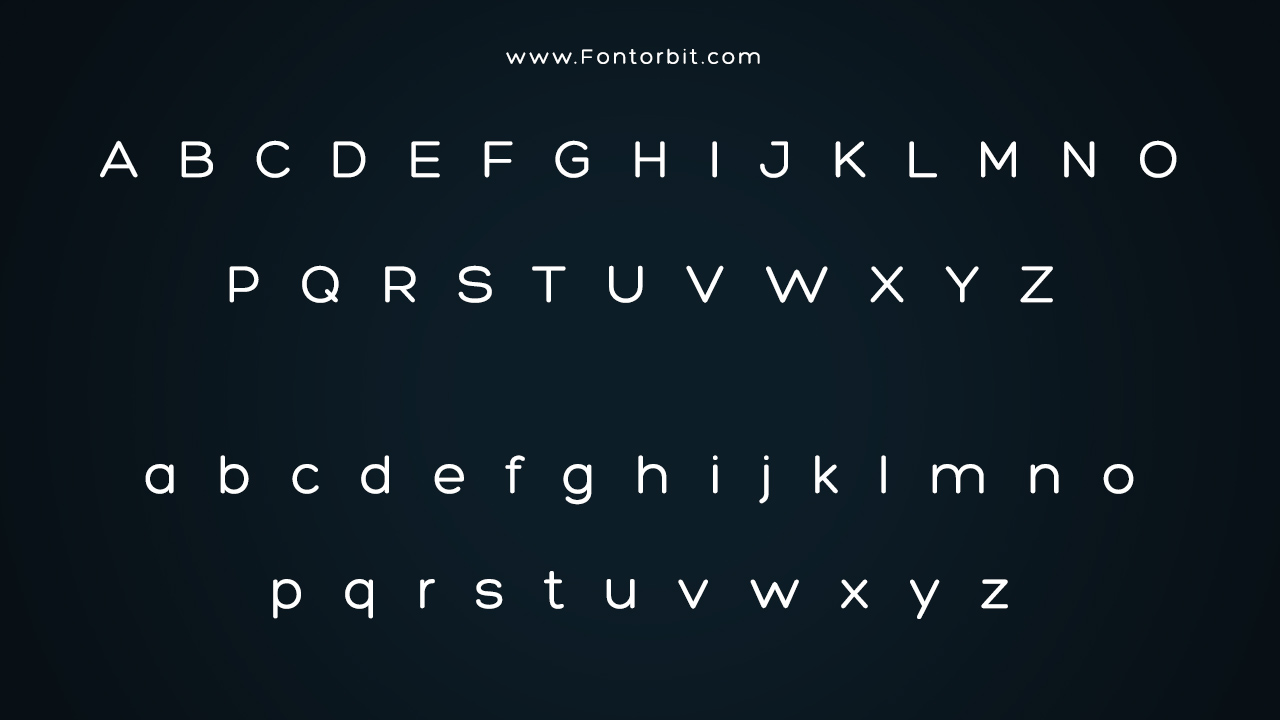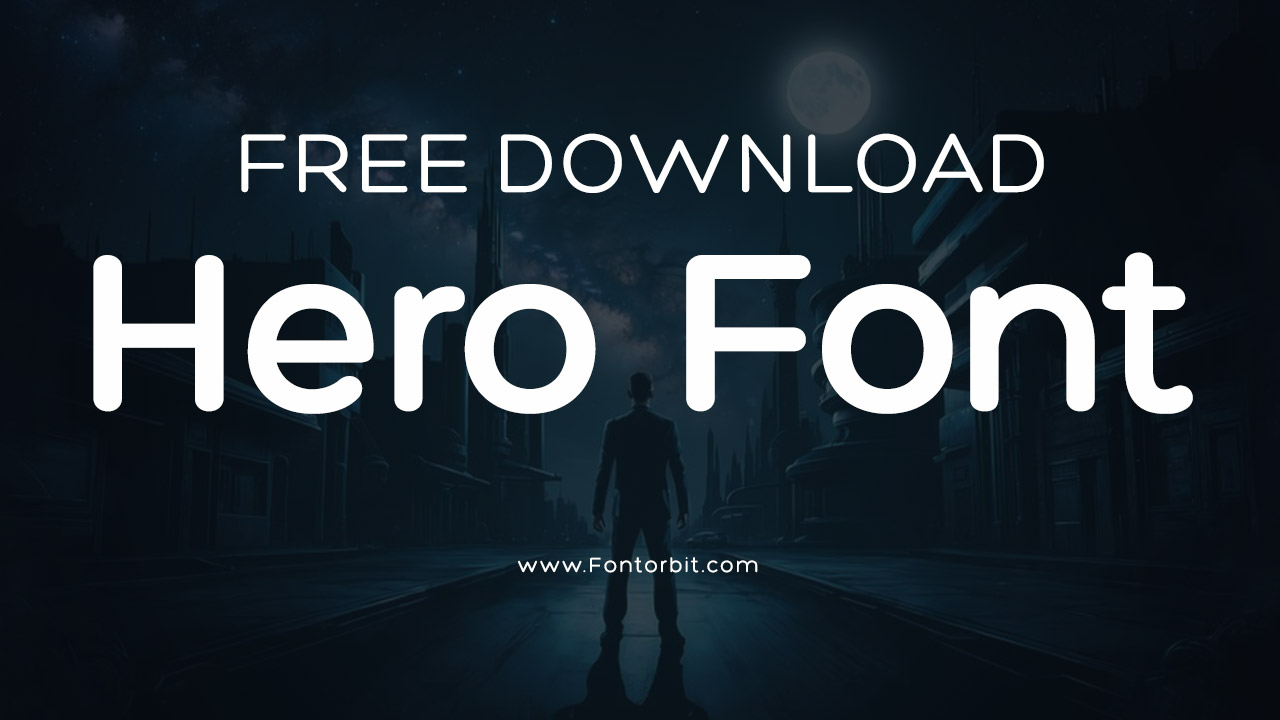
The Hero font is a sleek and modern sans-serif typeface designed by Svetoslav Simov and published by Fontfabric. Released in 2011, it has gained popularity due to its clean and minimalistic style, making it a versatile choice for various design projects. Hero belongs to the sans-serif font family, offering a perfect balance between readability and style.
Hero Font Family Includes
The Hero font family is known for its simplicity, functionality, and diverse use. It comes in multiple weights, making it adaptable to different design needs. Hero font family:
- Hero Light
- Hero Regular
- Hero Bold
Notable Uses Of Hero Font
The Hero font has been used across multiple industries due to its clean and professional look. Common usage includes:
- Corporate branding and logos
- Website headlines and navigation text
- Print media like brochures and magazines
- App UI design
- Business cards and stationery
Hero’s modern sans-serif design makes it perfect for professional and creative projects. The font works well in both digital and print media. It’s suitable for:
- Websites and digital platforms
- Editorial designs
- Corporate branding
- Presentations and reports
- Posters and flyers
The Hero font offers a clean, professional, and modern design that is ideal for a variety of uses. Its versatility and range of weights make it a go-to option for designers who need a reliable, readable, and stylish typeface. With plenty of free alternatives available, you can find similar options if you’re on a budget, but Hero stands out for its refined simplicity and universal application.
2.When Was The Hero Font Released?
The Hero font was released in 2011.
4.Is The Hero Font Good For Branding?
Yes, Hero’s clean and professional look makes it ideal for corporate branding.
5.Can I Use Hero For Both Headings And Body Text?
Yes, Hero works well for both headings and body text due to its readability.